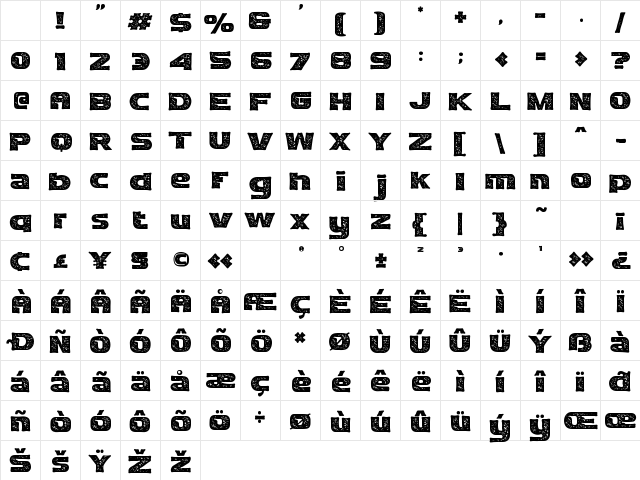
Marseilazi Sport Rough brings high-energy athletic personality to the page - its confident, muscular forms are built for impact.
Pro Tip: Use Marseilazi Sport Rough in all-caps headlines where its athletic energy can fully express itself. Pair with a solid, simple sans for supporting text.